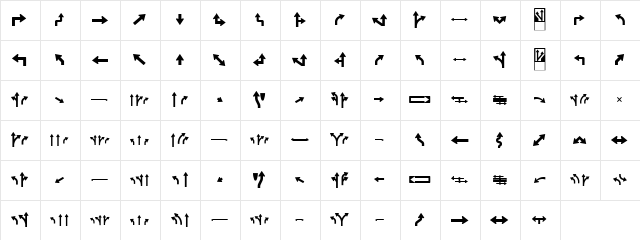
Roadgeek 2005 Arrows 1 Regular
| Foundry | Michael D. Adams |
| Designer | Michael D. Adams |
Design Context for Roadgeek 2005 Arrows 1 Typeface
Roadgeek 2005 Arrows 1 takes a measured approach to typography — its balanced proportions and neutral character make it a reliable workhorse for both digital and print work.